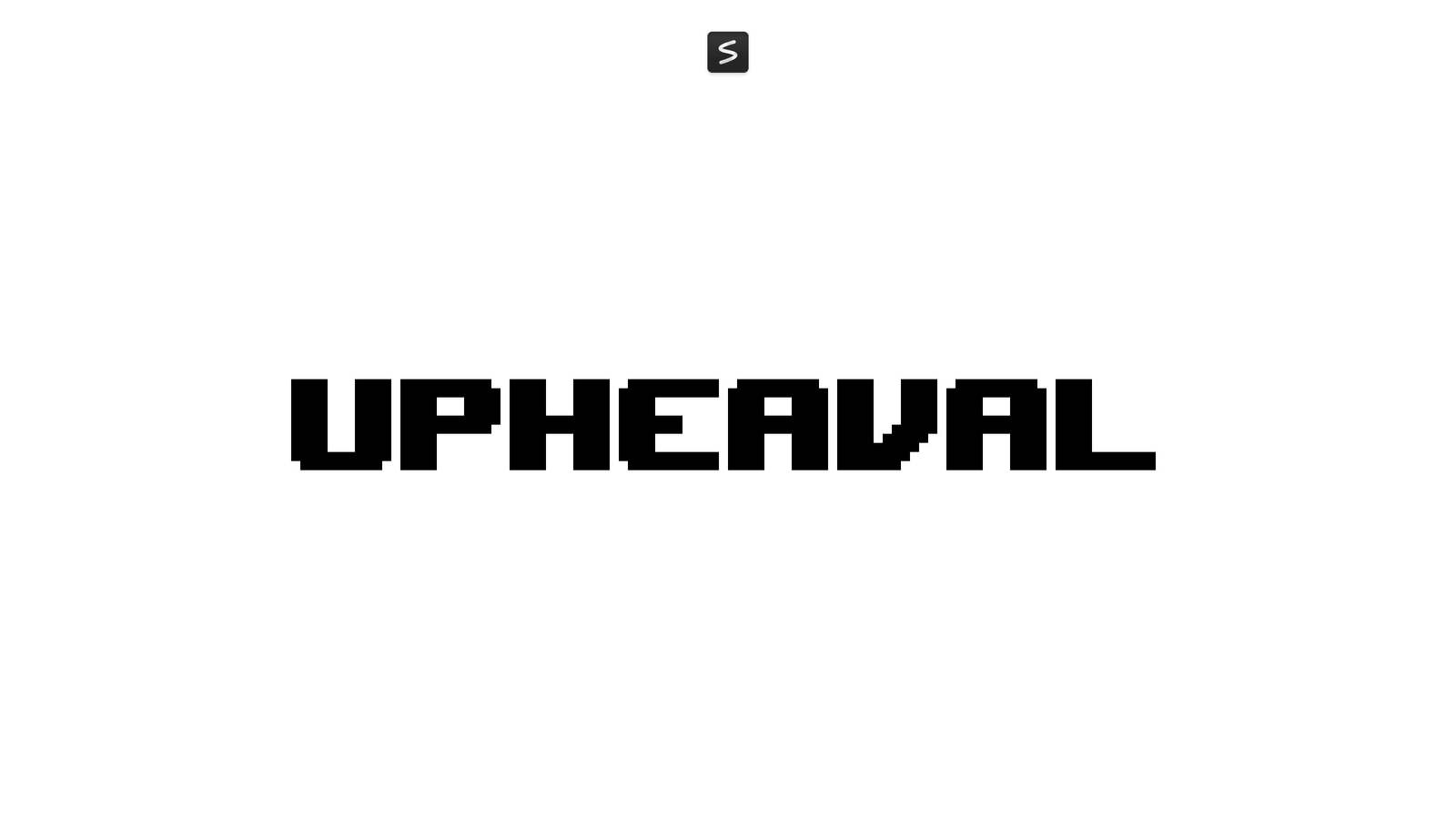
Upheaval, designed by Brian Kent, is a bold and chunky bitmap font that delivers serious impact with every character. Its thick, blocky pixel forms feel like they were ripped straight from a classic arcade cabinet or a retro console title screen.
The all-caps construction and heavy stroke weight make Upheaval a natural fit for headlines, logos, posters, and game UI where you need text to feel powerful and unmistakable. It reads cleanly even at large sizes thanks to its uniform pixel grid, while still keeping that authentic 8-bit edge.
If you’re working on indie games, retro-themed branding, or any project that wants to channel raw pixel-era energy, Upheaval is a heavyweight choice that grabs attention and refuses to let go.